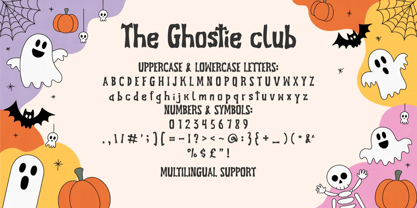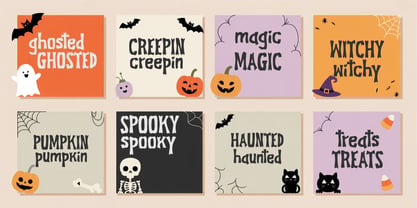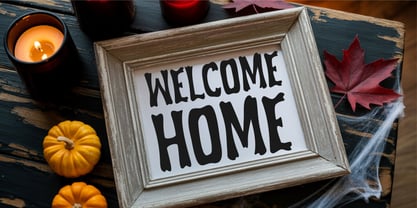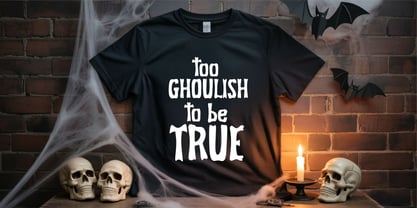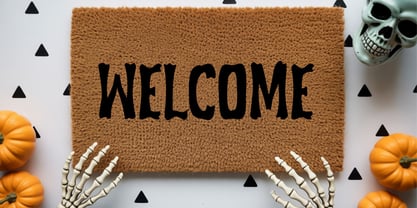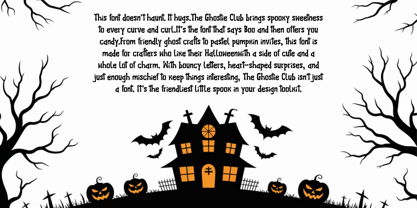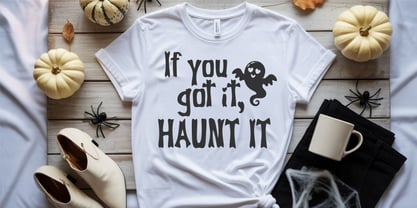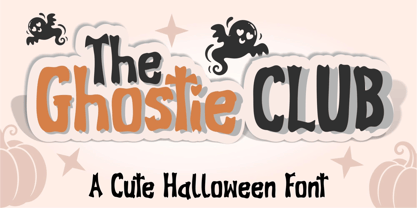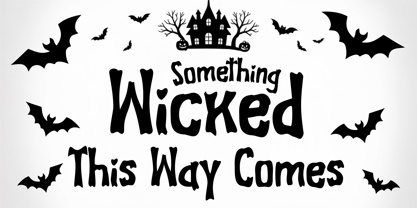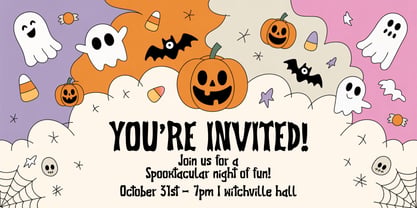
The Ghostie Club
The Ghostie Club is a playful and charming Halloween display font designed to bring a little spook and a lot of sweetness to your seasonal creations. With wobbly, bouncy letters and whimsical ghost-inspired details, this font is perfect for crafters, designers, and creators who want Halloween fun without the fright. From candy bag labels to haunted house party invites, classroom crafts to fall home decor, The Ghostie Club adds a cheerful, mischievous twist to every design.
Each letter is hand-drawn with quirky imperfections and delightful curves that give your projects personality and heart. You’ll spot surprise elements like heart-shaped cutouts, playful flicks, and just the right amount of spooky style to make your work stand out. Whether you’re making signs, shirts, stickers, cards, or digital designs, this font fits seamlessly into any Halloween or fall aesthetic — especially for kid-friendly or pastel spooky themes.
The Ghostie Club includes uppercase and lowercase letters, numbers, punctuation, symbols, and multilingual support. It's easy to use and versatile enough for everything from professional design software to home crafting machines.
More cute than creepy, and more hug than haunt — The Ghostie Club is your go-to font for a spooky season full of fun, laughter, and ghostly charm.